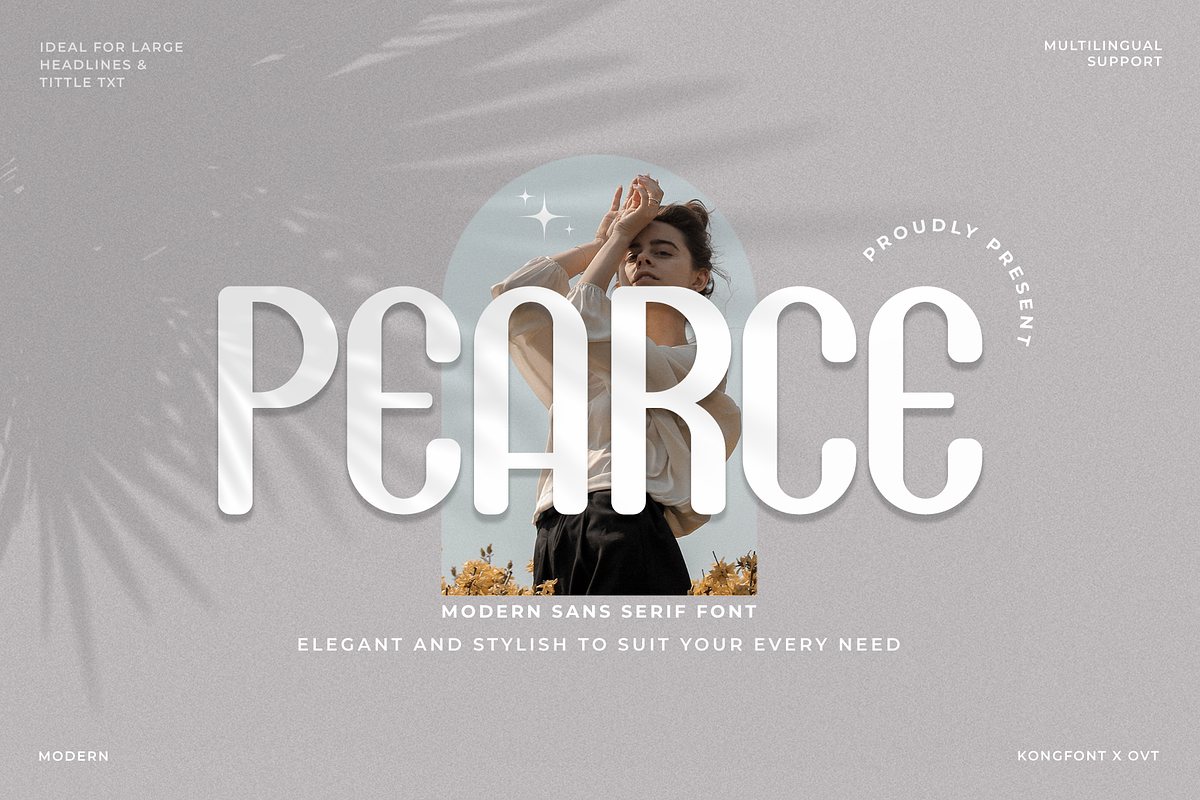
Pearce - Modern Sans Serif Font Free Download
Pearce - Modern Sans Serif Font Free Download is a clean, sleek, and versatile typeface designed for contemporary design needs. With its minimalistic form, smooth curves, and sharp lines, Pearce is perfect for branding, websites, UI/UX design, corporate materials, fashion editorials, and product packaging. It offers a balanced, professional look that’s both timeless and trendy.
Pearce stands out for its legibility and elegance, making it ideal for both headings and body text. Whether you're crafting a modern logo or designing a clean interface, this font adapts effortlessly across all mediums.